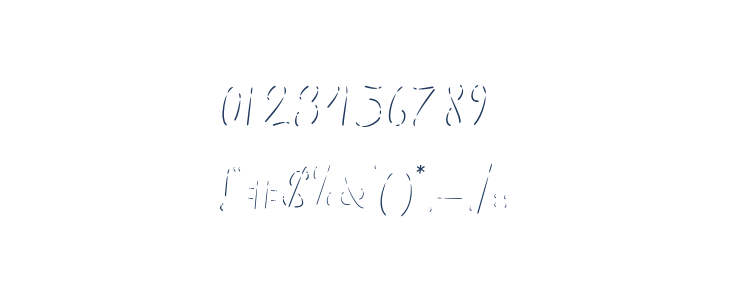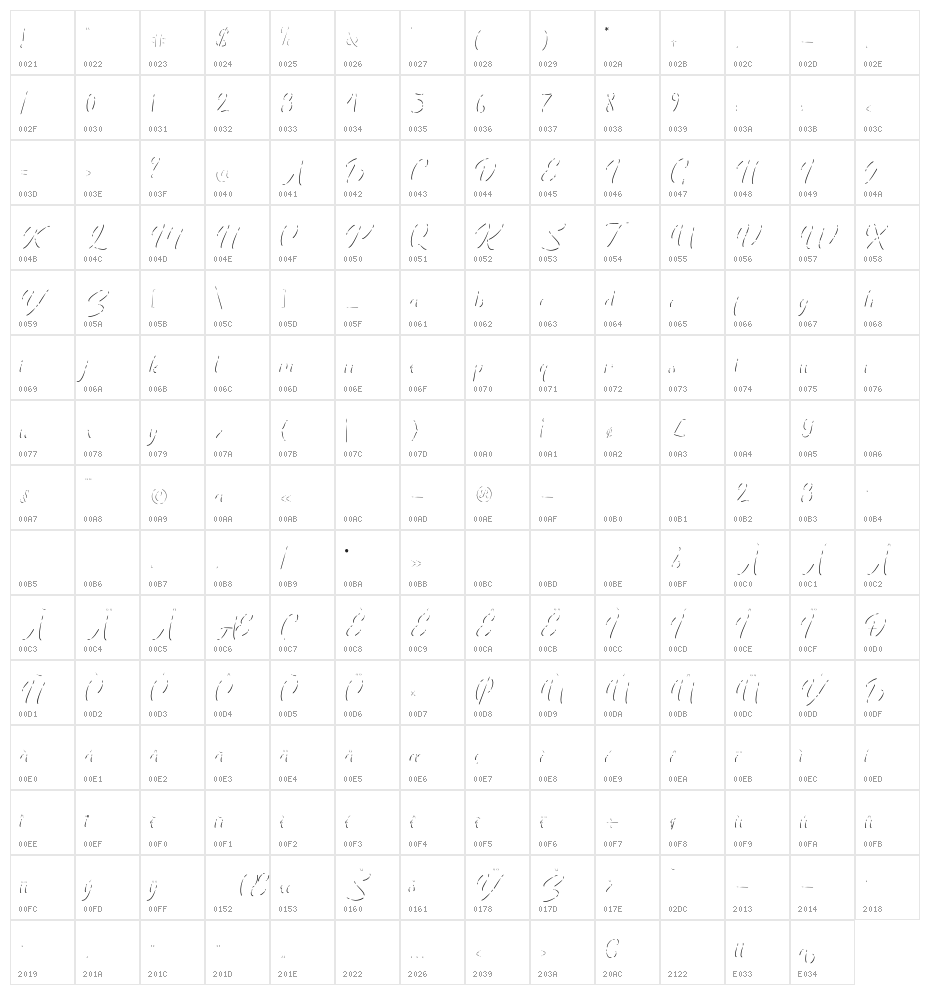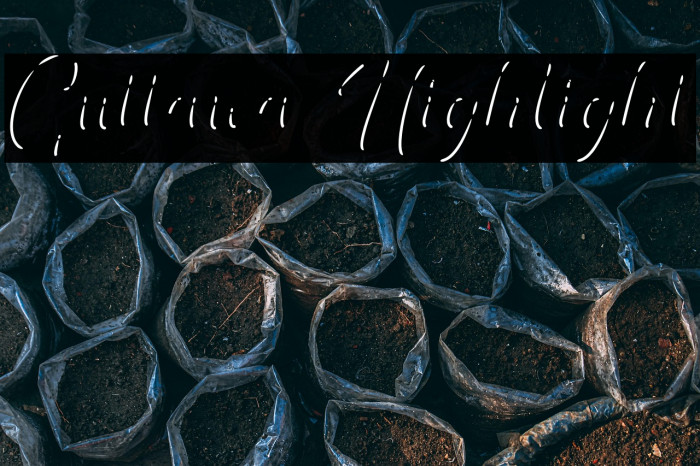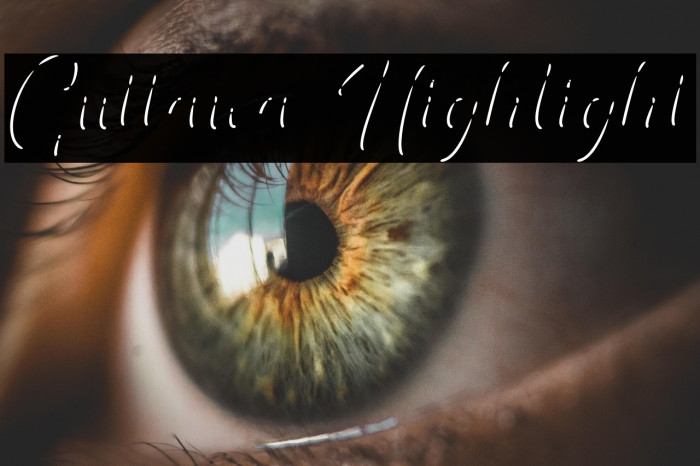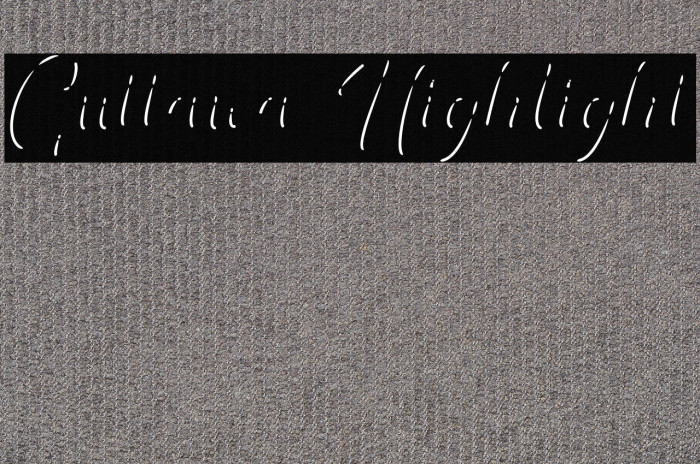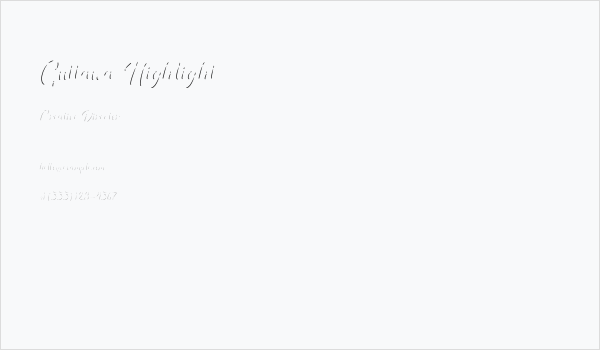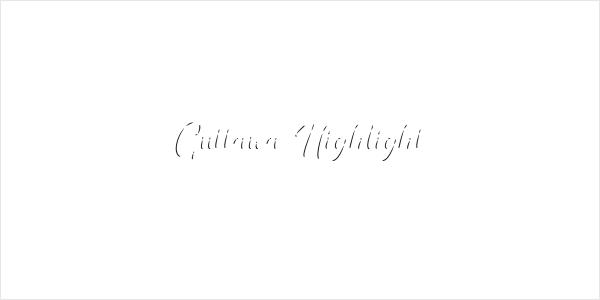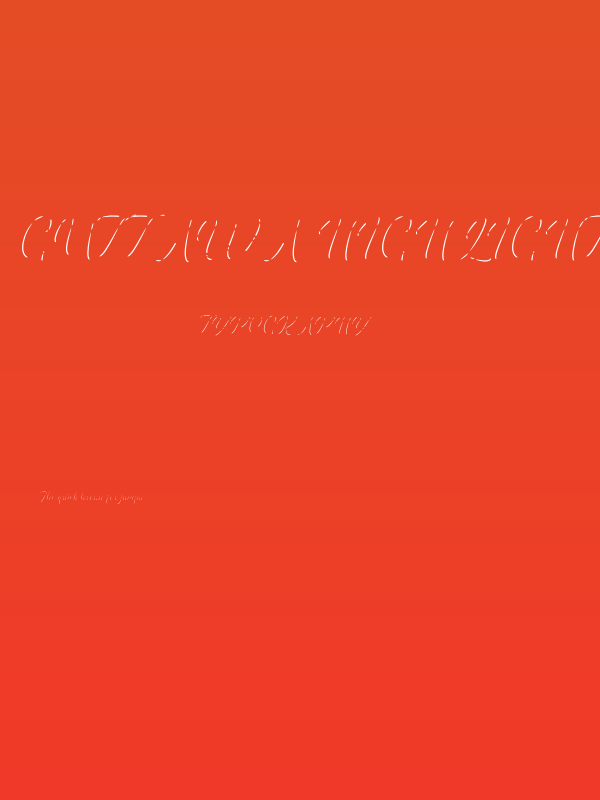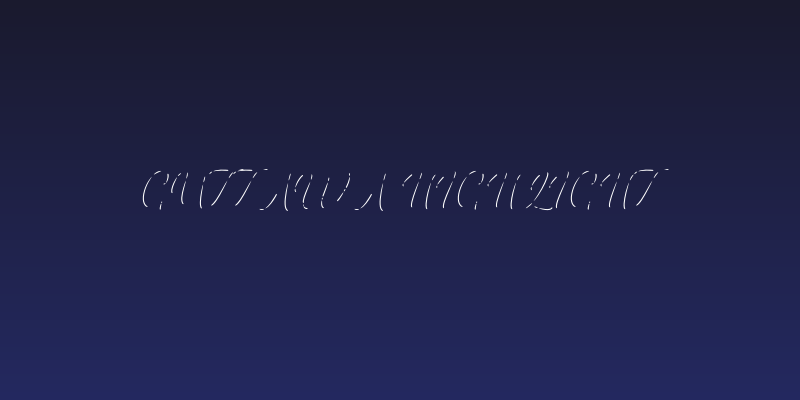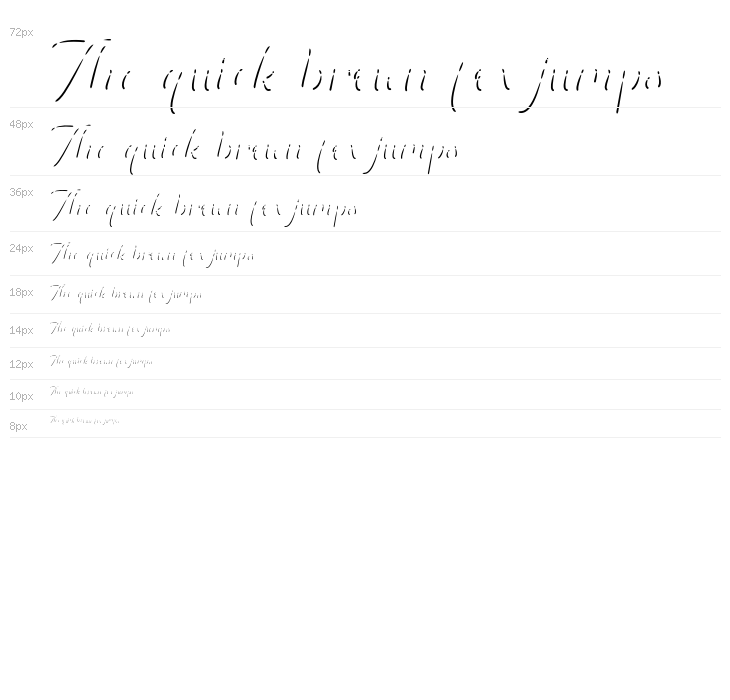
Guttawa Highlight Font
Guttawa Highlight Description
This font features a distinctive handwritten style with elegant, flowing strokes that mimic the fluidity of cursive writing. The characters are slightly slanted, adding a dynamic and sophisticated touch. Each letter is crafted with a sense of movement, creating a lively and engaging appearance. The uppercase letters are bold and prominent, while the lowercase letters maintain a graceful and delicate form. The numbers and special characters are consistent with the overall style, ensuring a cohesive look across all elements. This font is perfect for projects that require a personal and artistic touch.